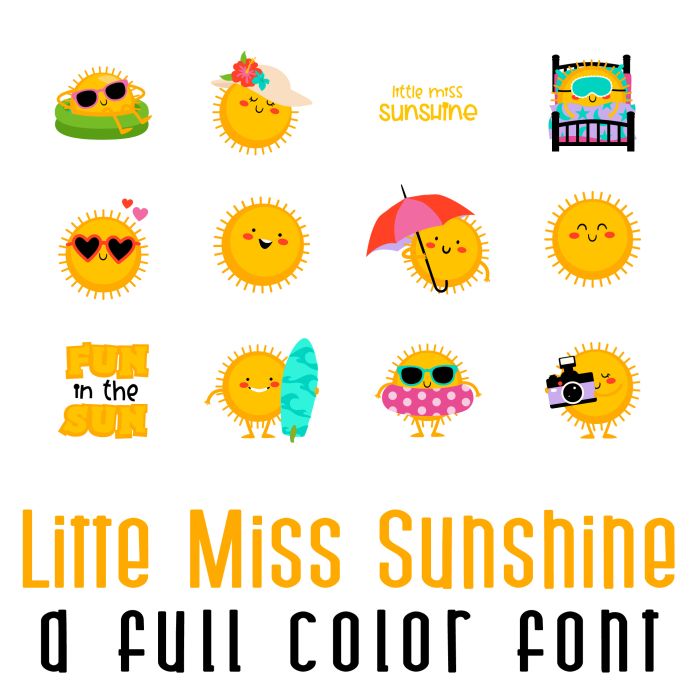
This fun full color font features 26 fun loving sunshines perfect for summer, parties, cardmaking, classrooms, scrap book pages, planner stickers and more!